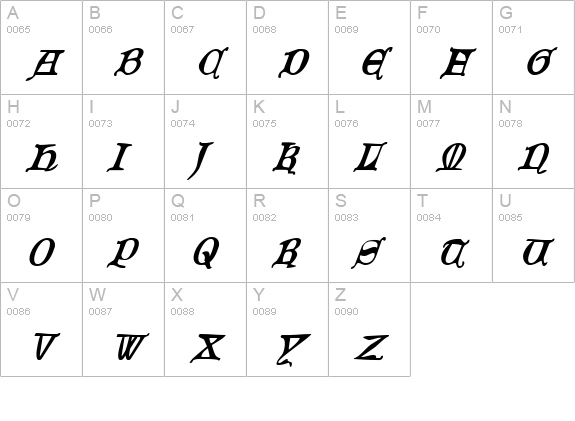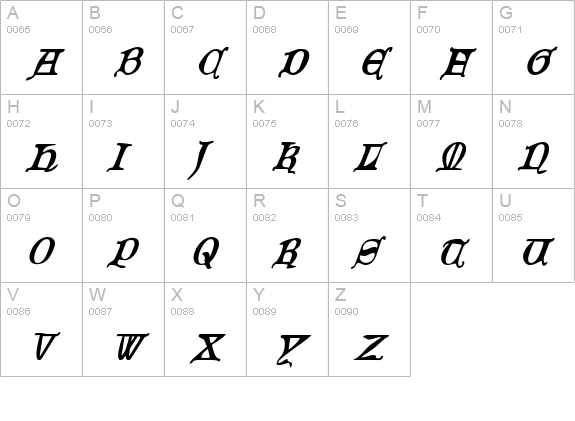
Queen & Country Condensed Italic is a distinctive, condensed-width, italic variant in the Queen typeface family \xE2\x80\x94 well suited to design and typography projects.
Queen & Country Condensed Italic font exudes elegance and sophistication with its sleek and stylish design. The italicized version of this font adds a touch of flair and modernity to any project. Its condensed style allows for more text to be displayed in a limited space without sacrificing readability. This versatile font is perfect for a wide range of design projects, from invitations and logos to websites and advertisements. Whether you are looking to add a touch of class to your branding or create a contemporary look for your website, Queen & Country Condensed Italic font is sure to impress. Best of all, this font is available for free download at FontsMarket.com. Don't miss out on the opportunity to enhance your designs with the beauty and sophistication of Queen & Country Condensed Italic font. Download it today and elevate your projects to the next level.